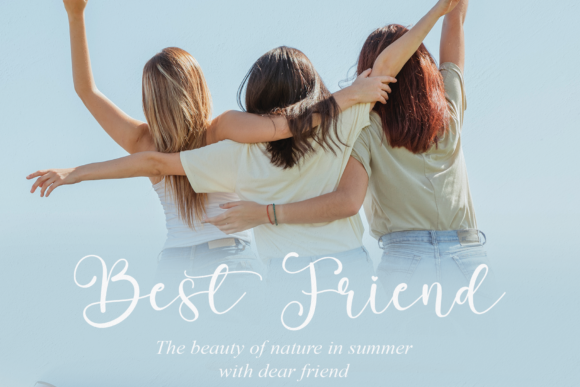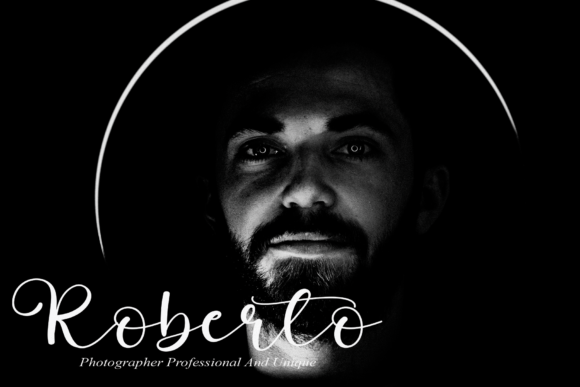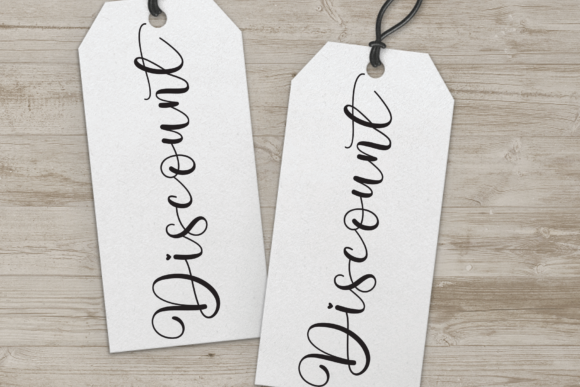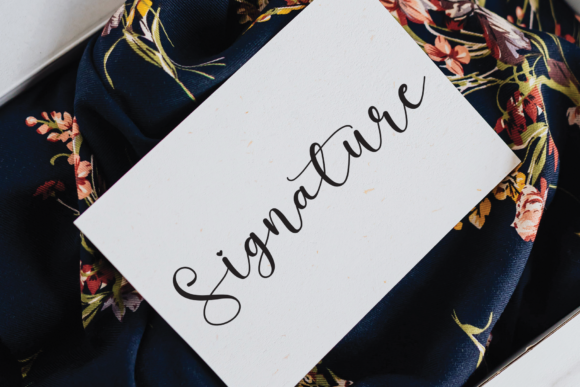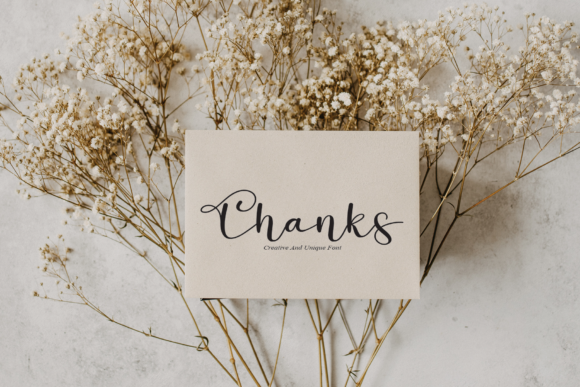
Discover the Magic of Grinch Font: Elevate Your Designs with this Dazzling Script Font
Are you a designer or crafter looking for a font that can add a touch of magic to your creations? Look no further than the Grinch Font, a dazzling script font that is sure to become a wonderful asset to your font library. With its unique and elegant style, Grinch Font has the potential to enhance any creation, regardless of the topic or theme.
What is Grinch Font?
Grinch Font is a script font that is inspired by the iconic character from Dr. Seuss’s beloved children’s book, “How the Grinch Stole Christmas.” The font is designed to capture the whimsical and playful spirit of the Grinch, while also providing a sophisticated and elegant look that can be used in a variety of design projects.
Key Features of Grinch Font
So, what makes Grinch Font so special? Here are some of its key features:
- Unique and Elegant Style: Grinch Font has a distinctive and stylish look that sets it apart from other script fonts. Its elegant lines and curves make it perfect for adding a touch of sophistication to your designs.
- Highly Versatile: Grinch Font can be used in a wide range of design projects, from invitations and greeting cards to posters and social media graphics.
- Easy to Read: Despite its ornate style, Grinch Font is highly legible and easy to read, making it perfect for use in both digital and print designs.
How to Use Grinch Font in Your Designs
Grinch Font is a versatile font that can be used in a variety of design projects. Here are some ideas to get you started:
- Holiday-themed Designs: Grinch Font is perfect for creating holiday-themed designs, such as Christmas cards, invitations, and posters.
- Social Media Graphics: Use Grinch Font to create eye-catching social media graphics, such as quotes, promotions, and announcements.
- Branding and Packaging: Grinch Font can be used to create unique and memorable branding and packaging designs, such as logos, labels, and business cards.
- Crafting and DIY Projects: Grinch Font is also perfect for crafters and DIY enthusiasts who want to add a personal touch to their projects, such as handmade cards, scrapbooking, and iron-on designs.
Tips for Getting the Most out of Grinch Font
Here are some tips for getting the most out of Grinch Font:
- Experiment with Different Sizes and Colors: Grinch Font looks great in a variety of sizes and colors, so don’t be afraid to experiment and find the perfect combination for your design.
- Pair it with Other Fonts: Grinch Font pairs well with other fonts, such as sans-serif fonts and serif fonts. Try pairing it with a bold font for a striking contrast.
- Use it to Add Personality to Your Designs: Grinch Font is a unique and playful font that can add personality and whimsy to your designs. Use it to create designs that stand out from the crowd.
In conclusion, Grinch Font is a dazzling script font that is sure to become a valuable asset to your font library. With its unique and elegant style, high versatility, and ease of use, Grinch Font is perfect for designers and crafters who want to add a touch of magic to their creations. Whether you’re creating holiday-themed designs, social media graphics, or branding and packaging designs, Grinch Font is a great choice. So why not give it a try and see the magic for yourself?